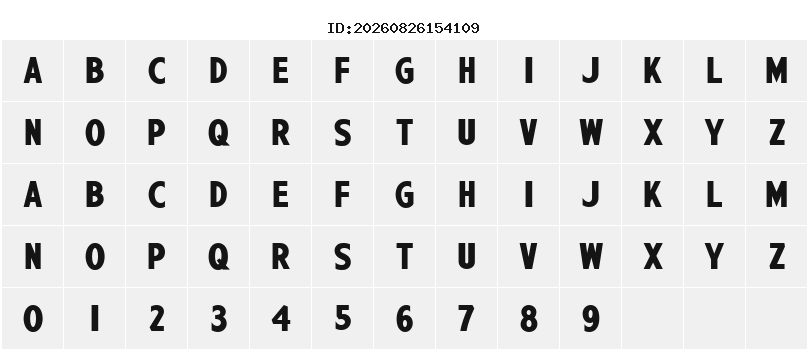
Wagner Zip-Change Preview
About Wagner Zip-Change.ttf
Wagner Zip-Change.ttf is a modern, elegant sans-serif font designed for ultimate readability and visual harmony. Perfect for branding, headlines, web design, and print materials.